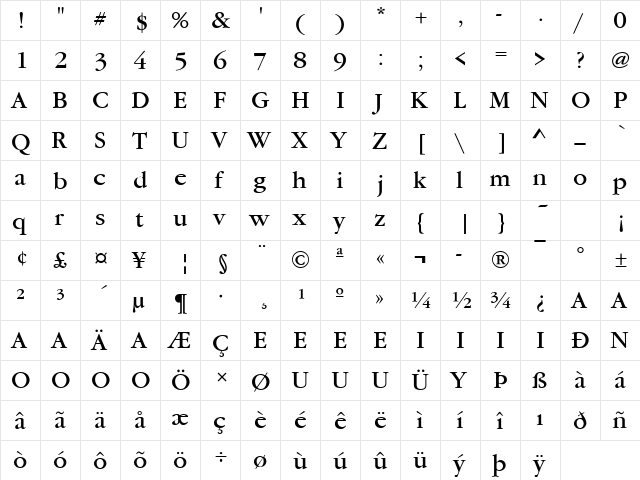
Garamond ITC T Book
Design Context for Garamond ITC T Typeface
Garamond ITC T is a composed and adaptable typeface that performs quietly and consistently across a wide range of design contexts.